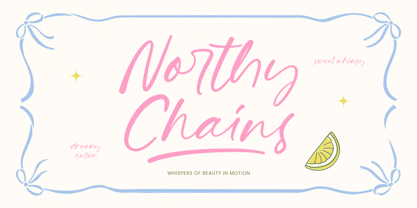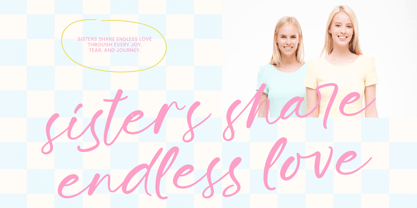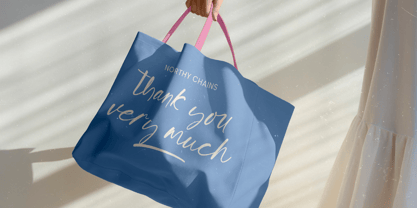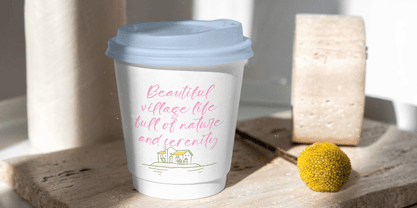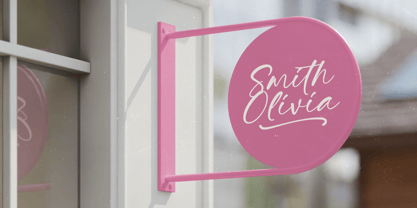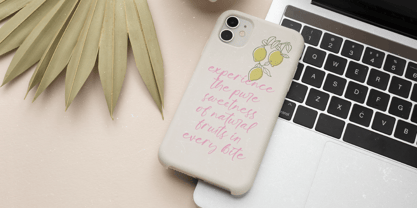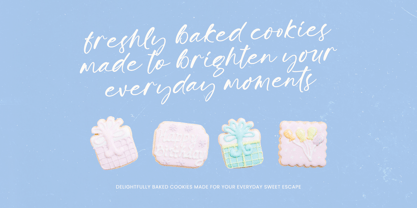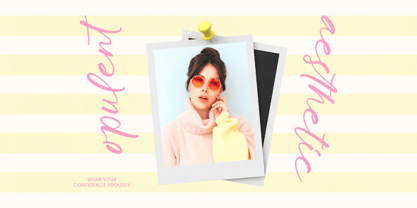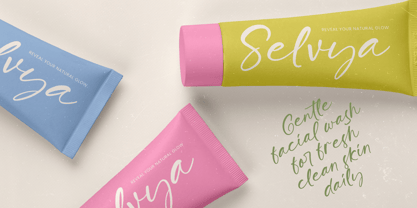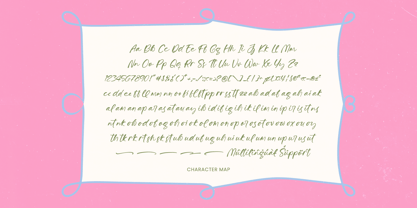
Northy Chains
by Stylishtype Studio
The Northy Chains Font Family was designed by Heru Utama Putra and published by Stylishtype Studio. Northy Chains contains 2 styles and family package options. More about this family
Elevate your creative vision with the effortless charm of Northy Chains - Casual Handwritten. This typeface embodies a modern handwritten aesthetic that balances organic fluidity with chic sophistication. Designed to mirror authentic penmanship, Northy Chains - Casual Handwritten features a dynamic stroke and playful ligatures that breathe life into every word, ensuring your message feels personal yet high-end.